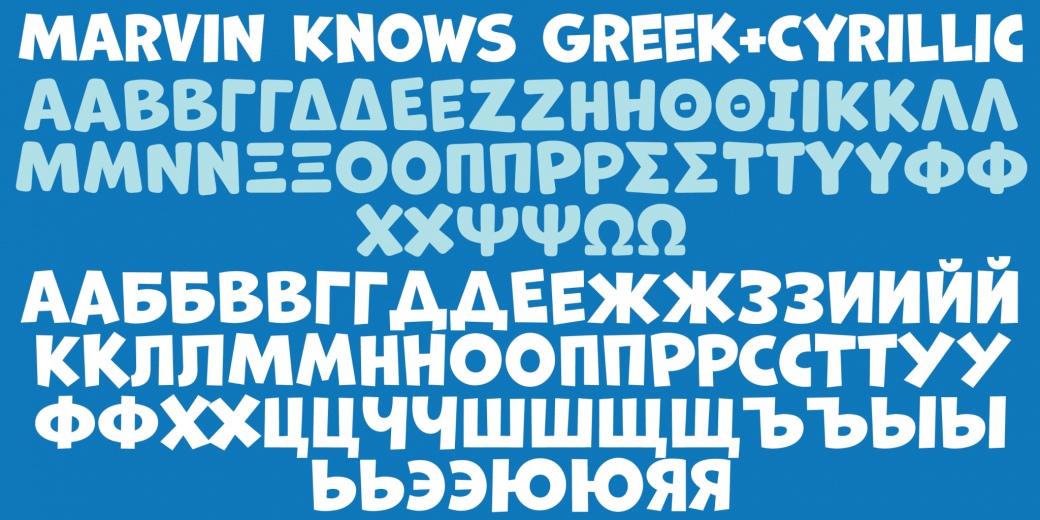
Marvin Font
Marvin Font is perfect for friendly neighborhood business branding, approachable service provider marketing, casual dining restaurant signage, reliable local company communications, personable retail advertising, down-to-earth lifestyle campaigns, trustworthy small business promotions, and genuine community-focused messaging.
What makes Marvin Font exciting is its dependable charm that embodies reliable friendliness and approachable trustworthiness with neighborhood authenticity and honest character. The font features sturdy letterforms with dependable proportions and trustworthy character that evoke reliable service, neighborhood trust, and the solid dependability of local businesses and community relationships. Its distinctive approachable styling and reliable appeal communicate honesty, dependability, and neighborhood friendship, making every message feel delivered by a trusted neighbor and touched by the genuine warmth of reliable service and community trust.
The Marvin Font family includes regular weight with uppercase and lowercase letters, numerals, punctuation marks, and special characters. Premium versions often feature reliable alternates and friendly elements that enhance the trustworthy, neighborhood aesthetic perfect for local business and community applications.
The trustworthy character of Marvin Font makes it particularly valuable for neighborhood service providers, local family businesses, and community-oriented organizations. Its excellent readability ensures friendly messaging and local communications remain clear while maintaining the distinctive dependable aesthetic that appeals to customers seeking reliable neighborhood services and trustworthy local character.
Local community marketers appreciate how Marvin Font effortlessly conveys neighborhood authenticity and reliable friendship. The font's sturdy proportions and trustworthy details create dependable brand materials that establish trust with audiences who value local reliability, neighborhood character, and the honest dependability of trusted community businesses and reliable local service.
The versatile reliability of this typeface extends to community services, local organizations, and neighborhood businesses where dependable authenticity enhances community credibility and local appeal. Marvin Font Free Download provides creative professionals with an essential tool for developing memorable, trust-driven designs that resonate with audiences who embrace neighborhood values, reliable service, and the sturdy dependability of Marvin-style community trust in their local business and community experiences.